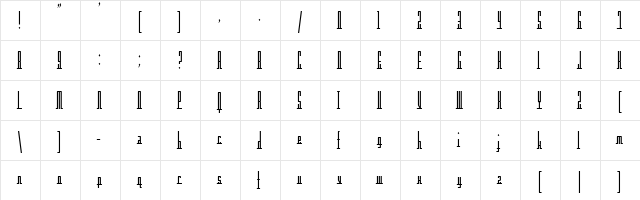
Americana Dreams CondUpright Regular
Design Context for Americana Dreams CondUpright Typeface
Americana Dreams CondUpright is a composed and adaptable typeface that performs quietly and consistently across a wide range of design contexts. The condensed width makes it efficient for tight spaces without sacrificing legibility.